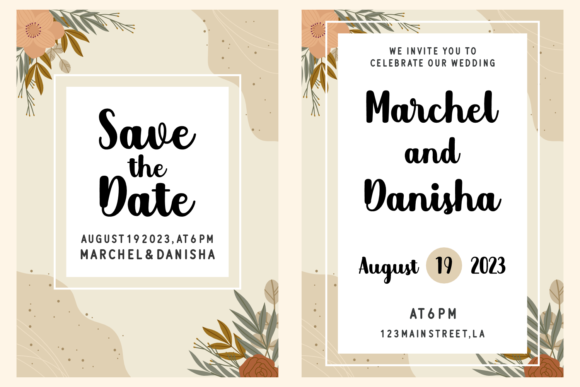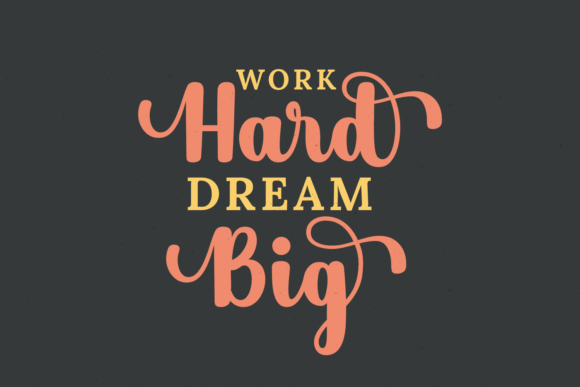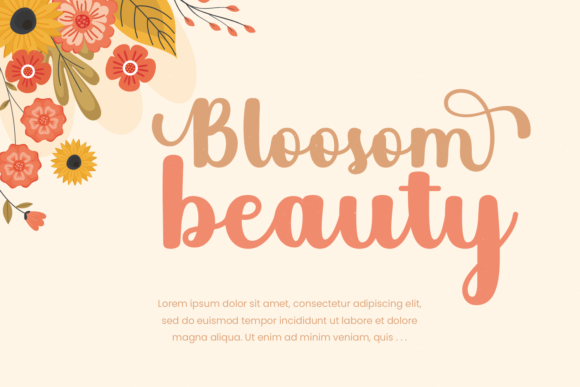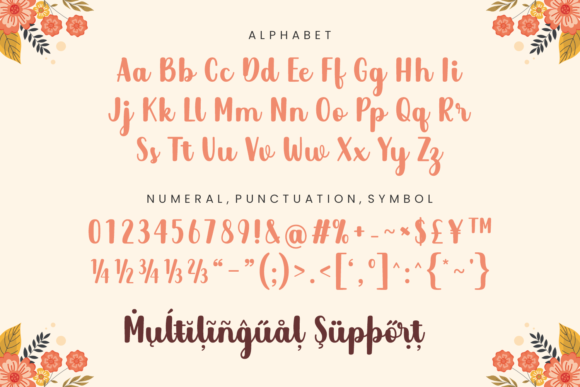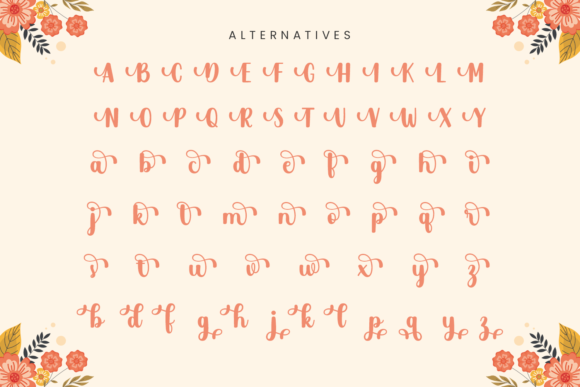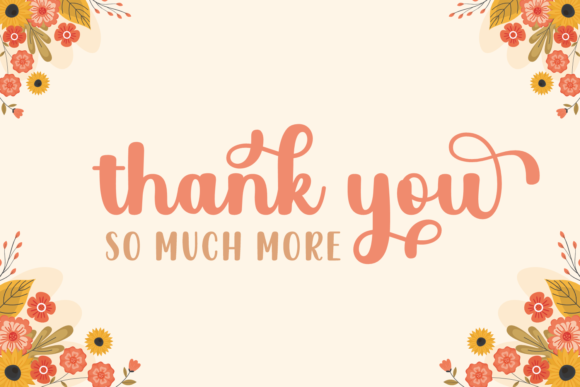
Introducing Danila Elegant Font: Elevate Your Designs with Modern Charm
In the world of typography, a font can make all the difference in the aesthetic and appeal of your design projects. Whether you’re a professional designer, a crafty DIY enthusiast, or a small business owner, finding the right font can elevate your work from ordinary to extraordinary. This is where Danila Elegant Font comes into play – a modern and charming script font designed to add a touch of elegance and sophistication to your storybooks, posters, wedding invitations, birthday cards, and a wide range of creative projects.
The Beauty of Danila Elegant
Danila Elegant is not just any font; it’s a carefully crafted typeface that exudes luxury, charm, and a modern vibe. Its exquisite characters are designed to boost the beauty of your designs, making them stand out in a crowded digital landscape. The font’s elegant strokes, beautiful ligatures, and stylish alternates make it perfect for projects that demand a high level of sophistication and refinement.
One of the key advantages of Danila Elegant Font is its versatility. This font can be used across a variety of platforms and projects, including:
• Storybooks: Add a touch of whimsy and elegance to your children’s storybooks, making them more engaging and visually appealing.
• Posters: Create stunning posters for events, promotions, or awareness campaigns that capture attention and convey your message in style.
• Wedding Invitations: Make your wedding invitations truly special with a font that spells love and luxury.
• Birthday Cards: Personalize birthday cards with a touch of elegance, making them memorable and unique.
• Creative Projects: From branding and packaging to digital marketing materials, Danila Elegant can add a sophisticated flair to any creative project.
Why Choose Danila Elegant?
With so many fonts available, why should you choose Danila Elegant for your projects? Here are a few compelling reasons:
• Modern and Charming: Danila Elegant offers a fresh and contemporary look that will set your designs apart.
• Exquisite Characters: The font’s carefully designed characters ensure that your text is not only readable but also a delight to look at.
• Easy to Read: Despite its elegant nature, Danila Elegant remains highly legible, making it suitable for both headings and body text.
• Highly Versatile: Use it across various projects and platforms, from print to digital media.
Danila Elegant Font is a game-changer for designers and crafters looking to add a modern and charming touch to their projects. Its exquisite characters, versatility, and elegance make it an excellent choice for a wide range of applications. Whether you’re working on a professional project or a personal craft, Danila Elegant is sure to elevate your designs and make them truly memorable. So, why wait? Explore the possibilities with Danila Elegant Font today and discover a new level of typographic elegance.